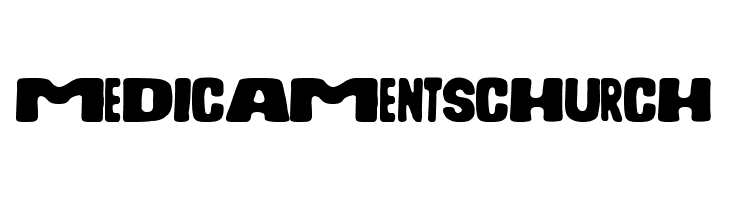
( Fonts by Darcy Baldwin - darcybaldwin.com. Free for personal use only )
A playful, handwritten font with rounded, bubbly characters and a casual style.
( Fonts by Khrys Bosland )
A playful, bold font with rounded, thick strokes and a hand-drawn feel.
( Fonts by Adien Gunarta - naraaksara.com - Personal-use only. For commercial use please contact owner. )
An elegant and decorative script font with intricate loops and flourishes.
A bold, hand-drawn font with expressive and uneven strokes.
( Fonts by HENRIavecunK. Personal-use only. For commercial use please contact owner. )
A bold, condensed font with a modern and sleek appearance.
( Fonts by Bud White. Personal-use only. For commercial use please contact owner. )
A bold, dripping font with a dynamic and edgy appearance.
( Fonts by Bud White. Personal-use only. For commercial use please contact owner. )